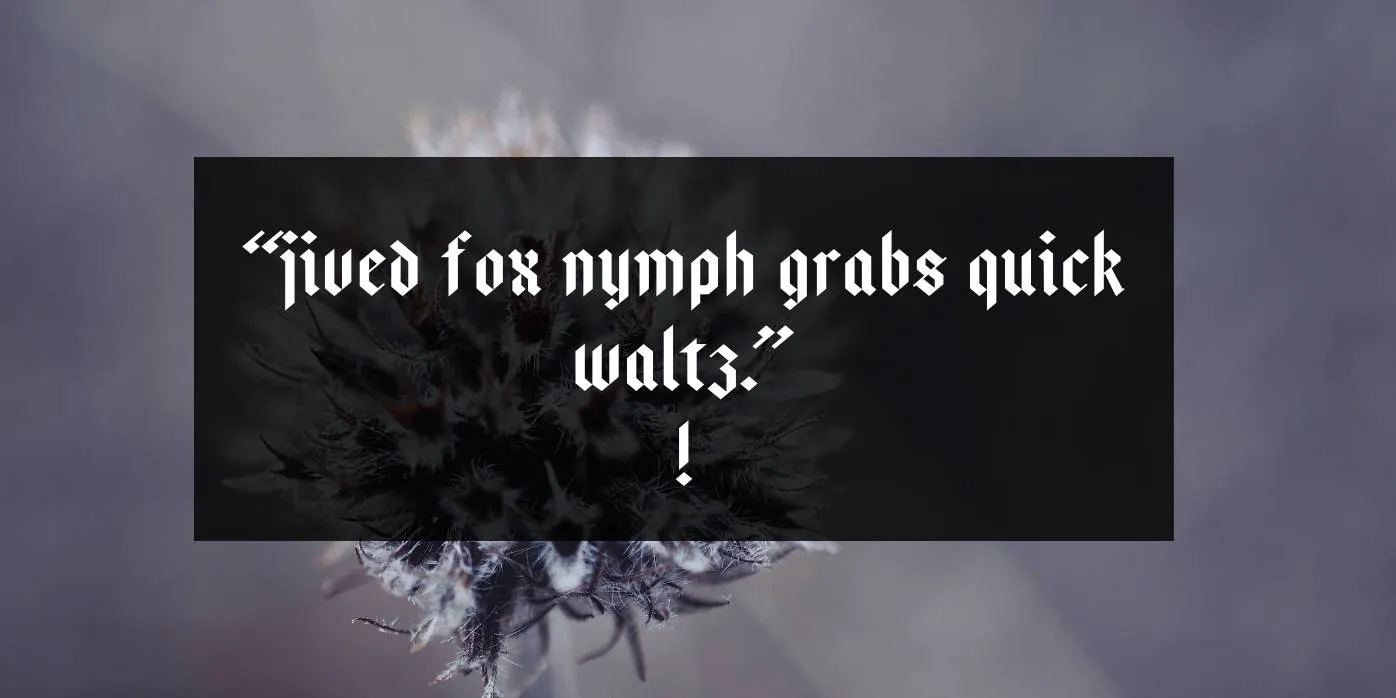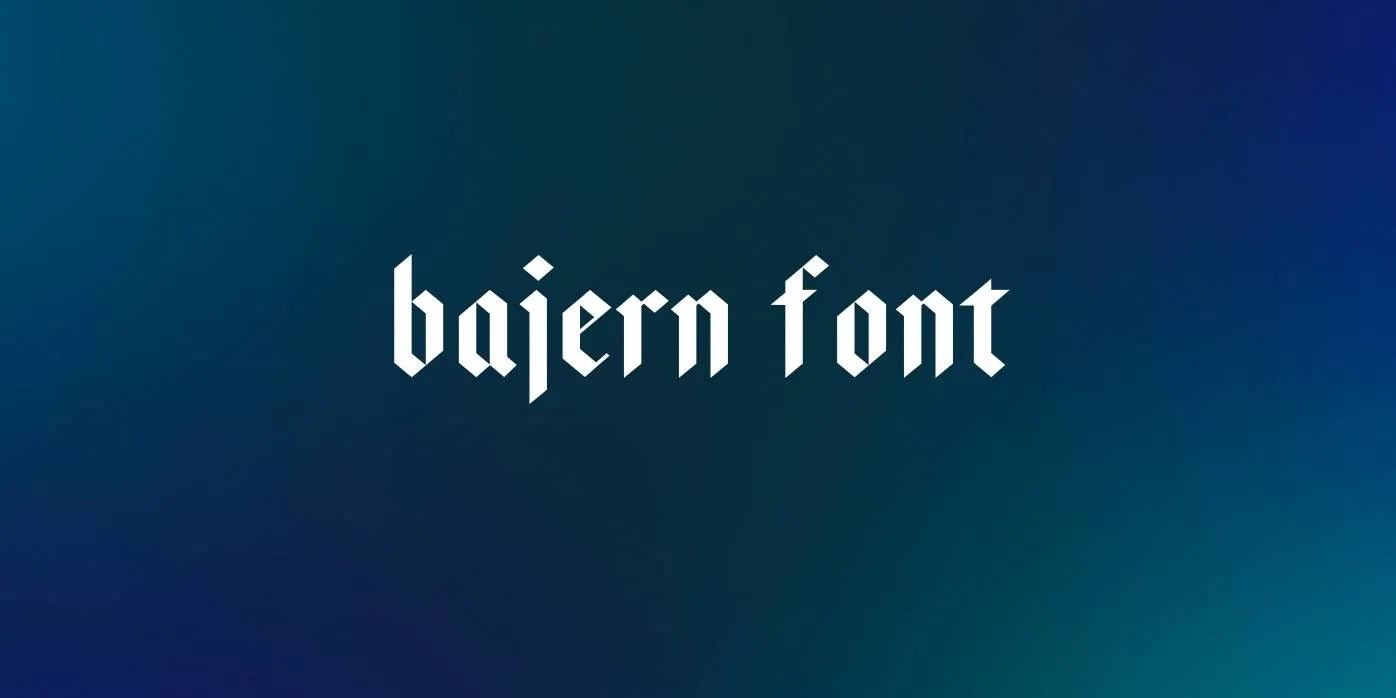
Bajern Font
Today, we are going to introduce a stunning typeface named Bajern Font. This awesome typeface was developed by Anton Bolin. It belongs to the gothic font family. It is well specified for the CSS Family.
This font is perfect for making headlines, posters, and other display purposes. Bajern Typeface has two different styles named Regular and Alternate. Both styles have their own unique appearance. Its similar ultra font is suitable for a lot of projects.
The regular style of this font is very similar to the classic blackletter typefaces. It features sharp edges and thick strokes. The alternate style, on the other hand, is a little bit more modern. It has thinner strokes and softer edges.